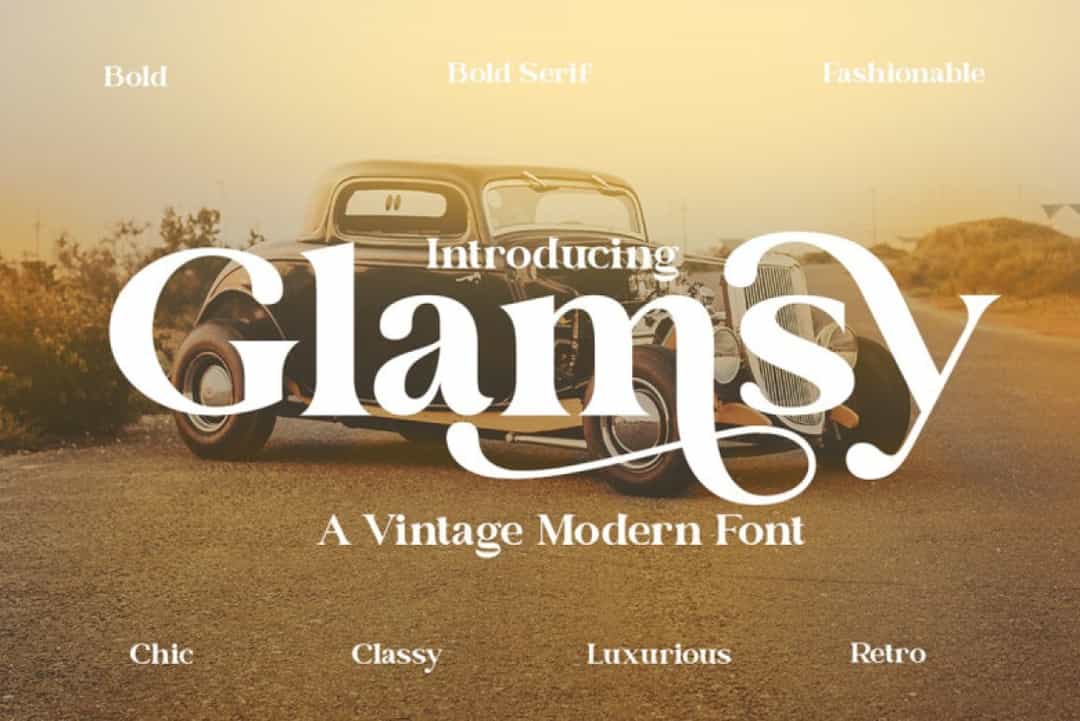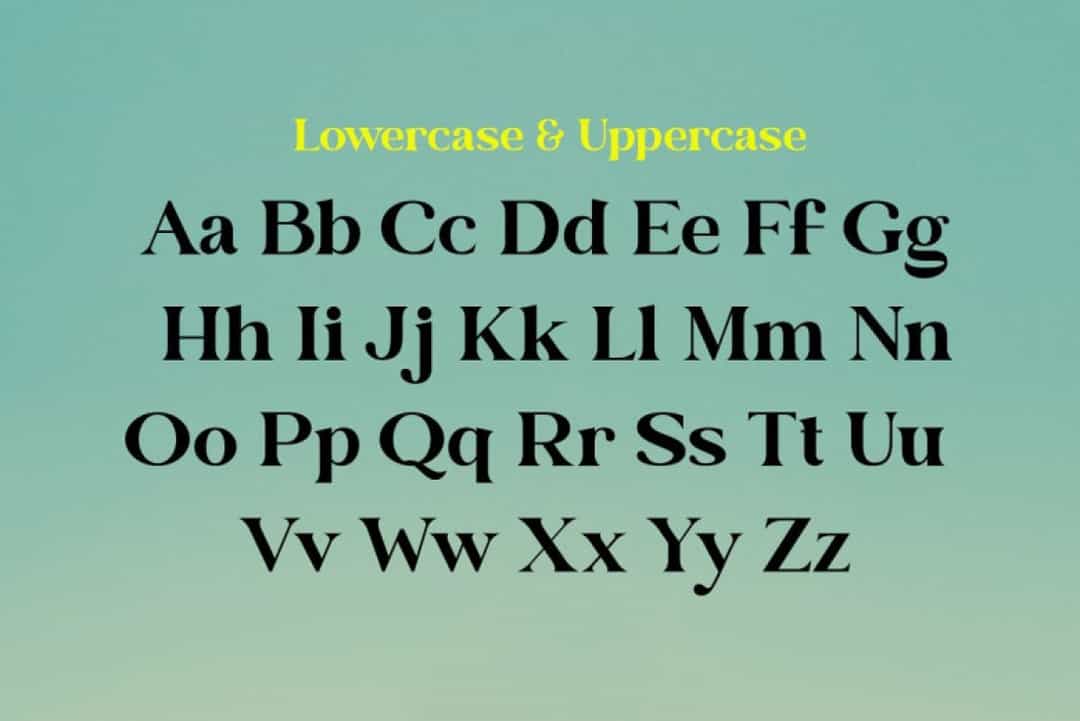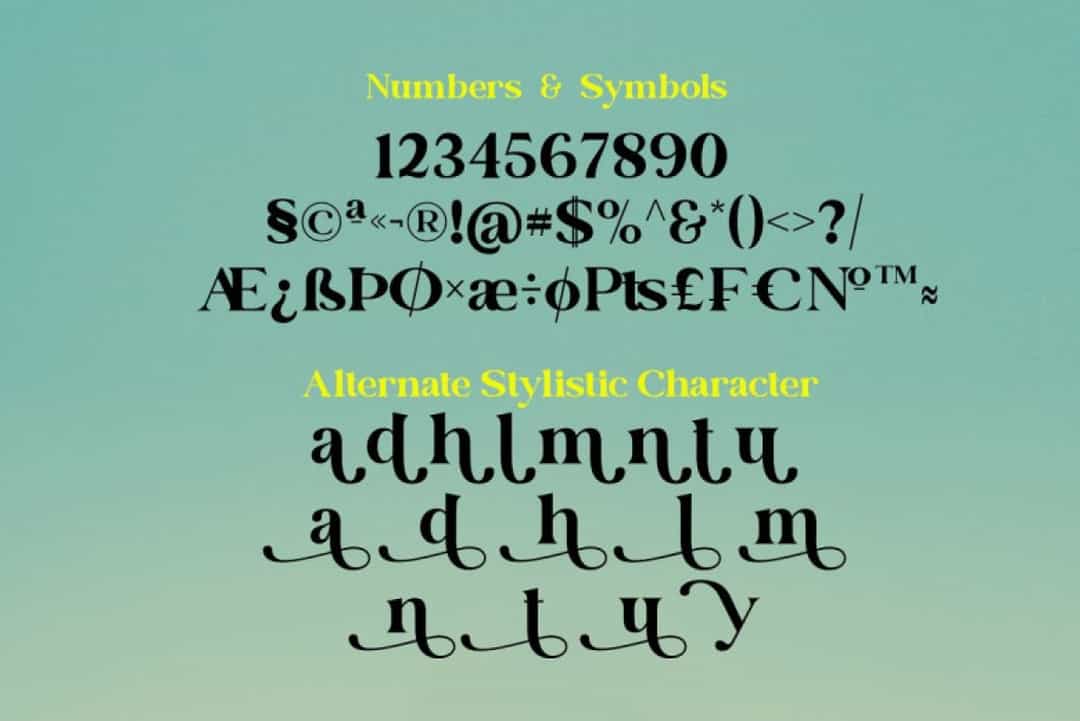
Discover Glamsy Font, part of the Serif Vintage collection—a versatile and unique font perfect for adding a personal touch to your projects. Download it for free and enjoy crafting designs with style, from invitations to social media posts. This font is available exclusively for personal use, giving you the freedom to create without limits. Unlock your creativity with Glamsy Font today!
Glamsy Serif Font is a Vintage Modern Font created by Graphue. Perfect for printed materials and merchandise as well as websites and social media marketing campaigns, Glamsy can help make a statement with any project – try it now to experience how powerful an elegant font can be on any endeavor!